Meet Shaqa Bovand, Hyeyun Min, and María Laura Olcina. Despite their varied backgrounds and distinct, challenging paths into the world of type, the 2023 Finalists share a devotion to type design as an art form and educational tool. While they are at different stages in their career, these three women seek to push boundaries and educate the next generation of lettering artists and type designers.
The Malee Scholarship is honored to announce Shaqa Bovand, Hyeyun Min, and María Laura Olcina as our 2023 Finalists. We were especially impressed with their talent in type design and their commitments to social progress. Shaqa is a type designer and lettering artist notable for her calligraphic deftness and outspoken support of the anti-regime protests in her home country, Iran. Hyeyun is a self taught multidisciplinary designer who works at the vanguard of AI design, participates in the vibrant MIT design community, and created a typeface in homage to cultural adaptation and a personal passion, running. María is a graphic designer and educator whose work preserves underrepresented languages and supports the indigenous communities that use them in her native Argentina. We are honored to recognize the three of them as Scholarship Finalists, and are excited to see how they will contribute to progressing the art and impact of type design in our community and the greater world.
Shaqa Bovand
Shaqa Bovand is a type designer and lettering artist, born and raised in Iran. Her love of letters began at a young age when her dad bought a book titled “Secrets of Nastaliq”. After achieving both a bachelors and masters degree in Graphic Design in Iran, she began work as a brand and packaging designer. The continued love of letters apparent in her design work led her to apply for the MA Type Design course at the University of Reading. Following this she was employed by F37 and is currently working as a type designer for them on numerous scripts. Shaqa is also a lettering artist active on social media, with her artworks being used across the globe. She was also selected to talk at AtypI Paris 2023 and Type Lab 2023.
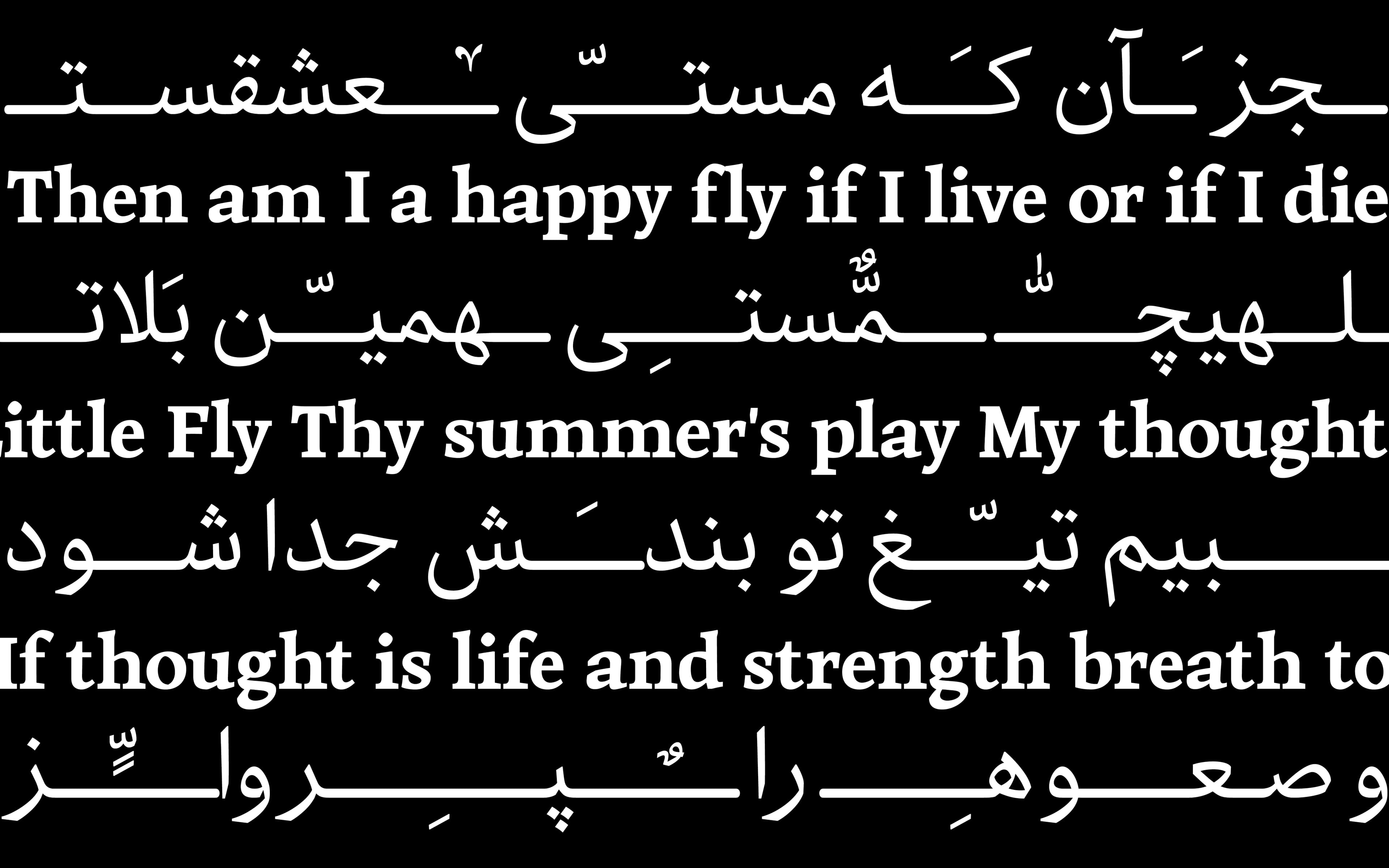
Your story is so inspiring. To the extent that you are comfortable sharing, please tell us about what it was like to grow up and develop your craft in Iran.
Born in southern Iran, I faced a male-dominated industrial town where art held little value. Moving to another city made me feel even more alienated; I dreamt of the cultural opportunities in Tehran. Despite obstacles, I excelled in graphic design, worked in the field, and pursued both a bachelor's and master's degree with distinction. During Covid, I had time to pursue my interests. I chose a New Year's resolution each year and one year opted to learn English. Despite objections from my parents, I wrote an application for the University of Reading to study the type design course and was accepted. My parents eventually supported me in this decision. Selling my belongings, I embarked on a formative journey to the UK, working as a bartender to support myself while studying type design. Today, I continue to fight for equality and freedom through my self-initiated lettering work whilst continuing my development at F37, driven by a deep sense of purpose.
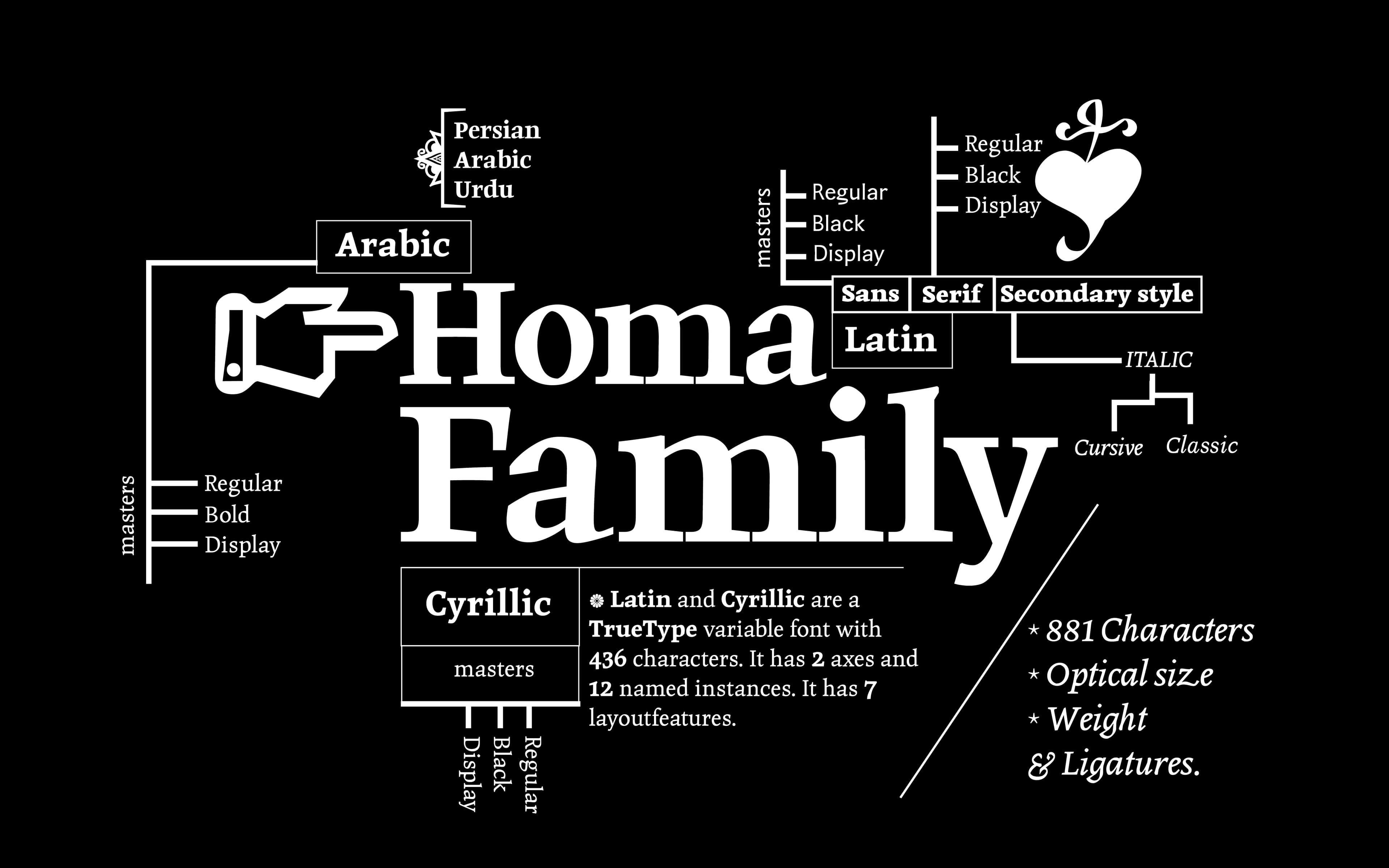
Tell us about your experience at Reading University, and your thesis project, Homa Multilingual.
My experience at Reading University was life-changing, being in a completely different environment with a diverse group of classmates, immersing myself in a new culture, and being far away from my family and friends for the first time presented significant challenges. Dealing with numerous sources and understanding what teachers expected proved difficult in a second language, I was fortunate to have generous classmates who helped me adjust to life in the UK.
My typeface Homa, designed while at Reading, is especially suited for visual identities and packaging design, at home in text or on a billboard. Before attending my masters, I worked in a brand design studio where finding a suitable typeface for our projects was often a challenge. This sparked my interest in designing a typeface specifically for brand identity. Homa supports three scripts, Latin, Arabic, and Cyrillic. These were created under the guidance of Fred Smeijers, Gerry Leonidas, Fiona Ross, Borna Izadpanah and Victor Gaultney.
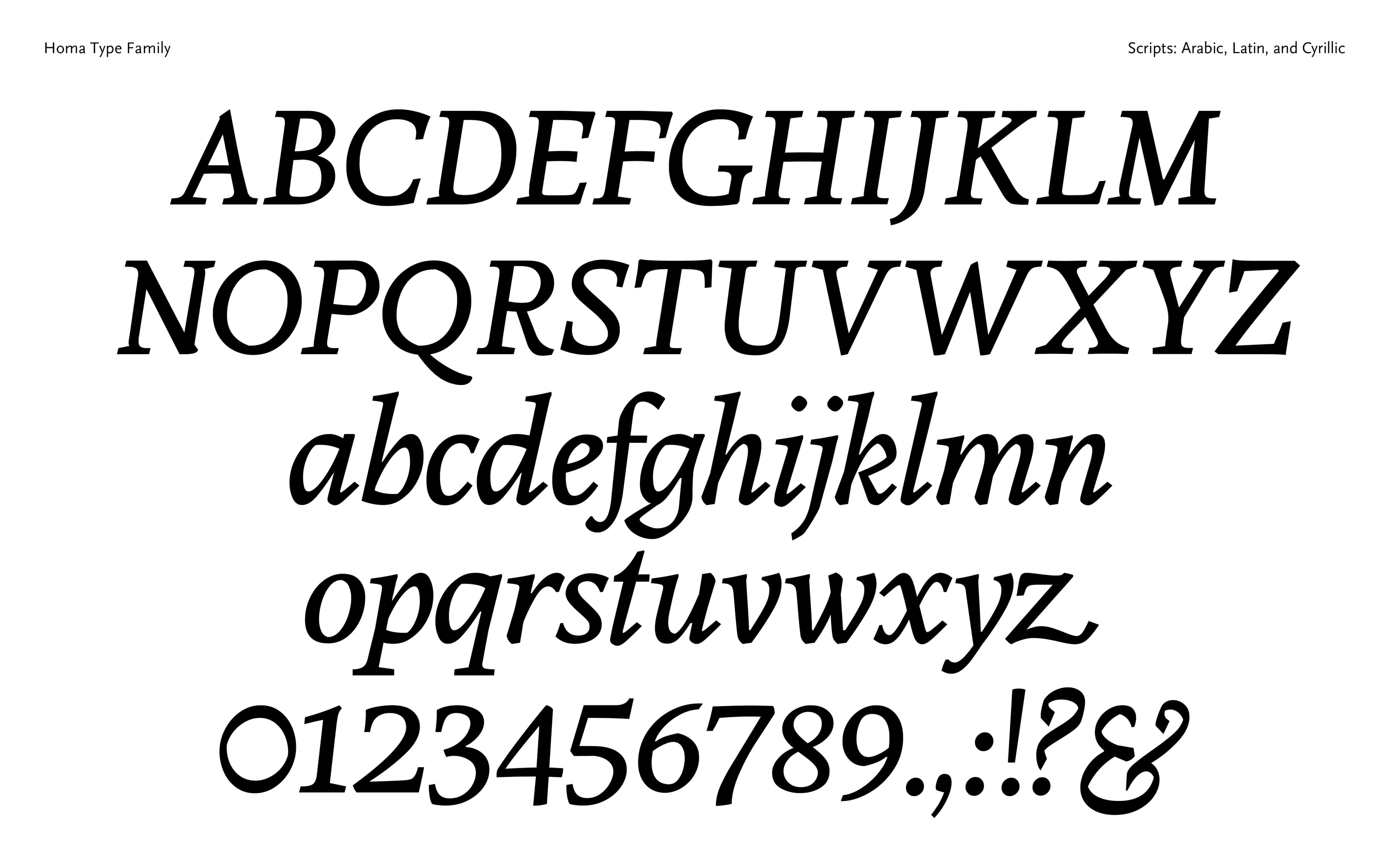
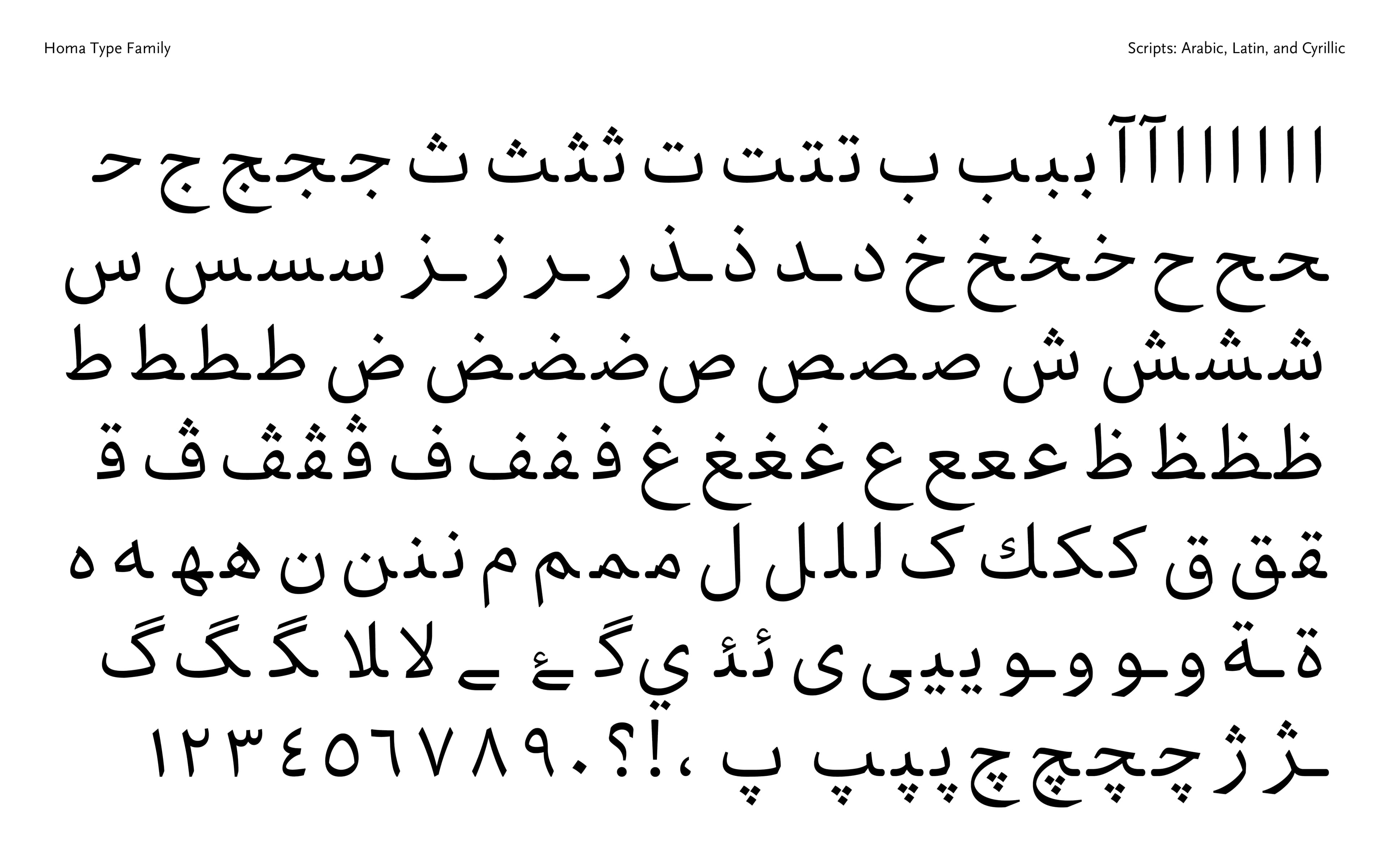
During my time at Reading University, I undertook a thesis project focusing on "Structural changes of Persian Naskh text with the introduction of lithography in nineteenth-century Iran." The study delved into the Persian Naskh style from the perspective of type designers and explored how its structure evolved with the advent of lithography as a printing method during the nineteenth century.
Metal type had limitations in representing all the aesthetic intricacies of Arabic letter forms, prompting the preference for lithography as the primary printing technique in Iran. While lithographic editions remained faithful to manuscripts, they still underwent changes during the printing process. The research sought to identify the characteristic features of letter forms in manuscripts and examine how they transformed with the introduction of lithography in the nineteenth century. This was achieved by analysing specific text paragraphs in manuscripts and comparing them with the same paragraphs printed using lithography. I am immensely grateful to Fiona Ross and Borna Izadpanah for their generosity and expertise in providing invaluable guidance during the initial stages of my research. Their support was instrumental in shaping the direction and scope of my thesis project.
Can you describe your involvement in the Women, Life, Freedom protests?
Protest art has always resonated with me, and I felt compelled to channel my anger into fighting for freedom by using my chosen medium of type. Through my social media feed, I propagated the message of «woman, life, freedom,» a phrase that had gained significant traction within the movement. The response to my work was overwhelming; people from around the world adopted my design, even printing it onto T-shirts without any knowledge of the artist behind it. It was amazing to see the impact that my simple messages could have.
“And now, I continue to share my creative expressions with the world, hoping to inspire and connect with others through the power of protest.”
During my spare moments, I loved working on lettering, but I was hesitant to share it on social media. Then, in the summer of 2022, I decided to take a chance and submit one of my pieces to Jess Goldsmith. She was searching for talented women lettering artists worldwide for a special book project she had in mind. My artwork, which revolved around visualizing poetry, was selected for her book "Women of Type.” This gave me the courage to finally showcase my protest lettering on my social media platforms. My work was met with acclaim, with people using it in ways I could never have imagined. My friends and family were sending me images of my lettering being used across the world. It had been put onto t-shirts, posters, stickers, and even stenciled onto walls. Being part of the book connected me with a community of fellow artists. It was an incredible feeling to realise that my art could have an impact beyond just myself. And now, I continue to share my creative expressions with the world, hoping to inspire and connect with others through the power of protest.
I also see myself in college teaching for a while longer. As a queer woman, I think it is important that women and the members of LGBTIQ+ community begin to occupy more important places, not only for decision-making but to show students that the university is a space for them too. No matter where they are from, what they are like, or who they love.